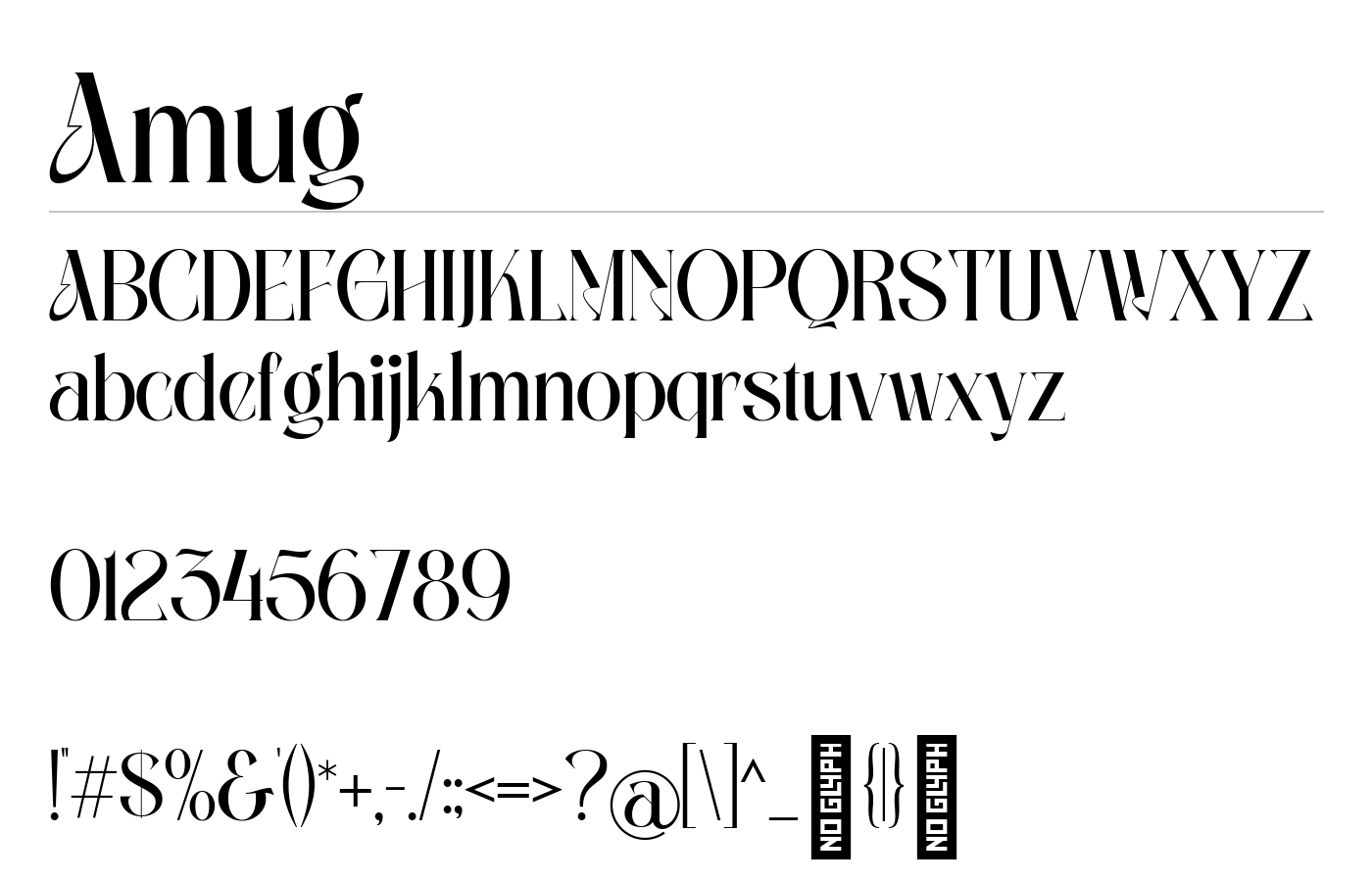
Amug is a sophisticated serif font that combines high contrast and sharp, elegant strokes with unique, artistic flair in its letterforms, making it stand out with a modern luxury vibe. Its condensed structure and distinctive details give it a refined and stylish personality, ideal for upscale branding, editorial headlines, and fashion-focused design projects where a touch of creativity and class is desired.
Amug Font
About Amug Font
| Font family | Amug Font |
| Designer | Sigit Dwipa Raharjo |